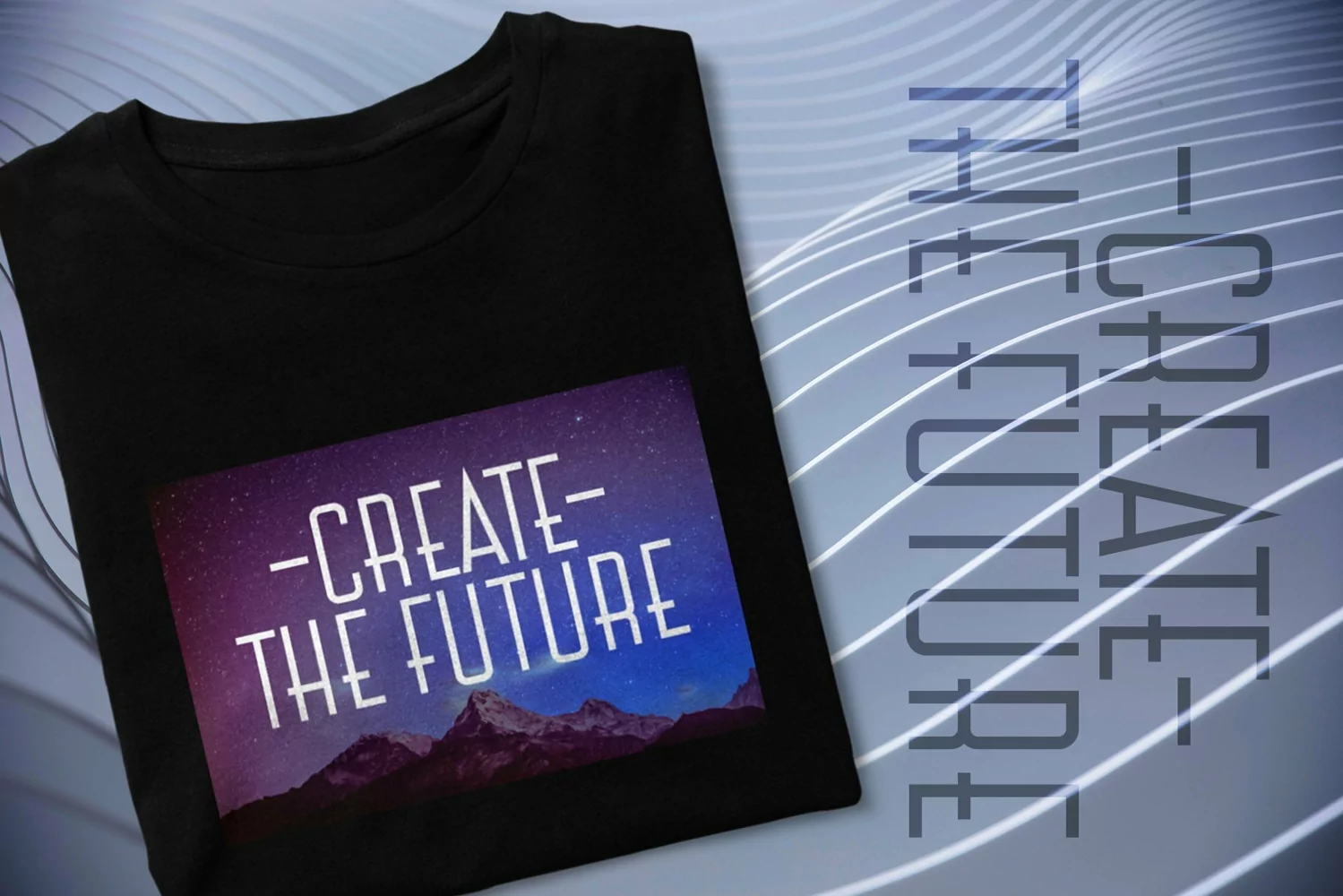
Mountana is a modern display typeface. Perfect for display, quotes, poster, branding, business card, logo, logotype, print, t-shirt, pin, mug, packaging, merchandise, headline, header and many more.